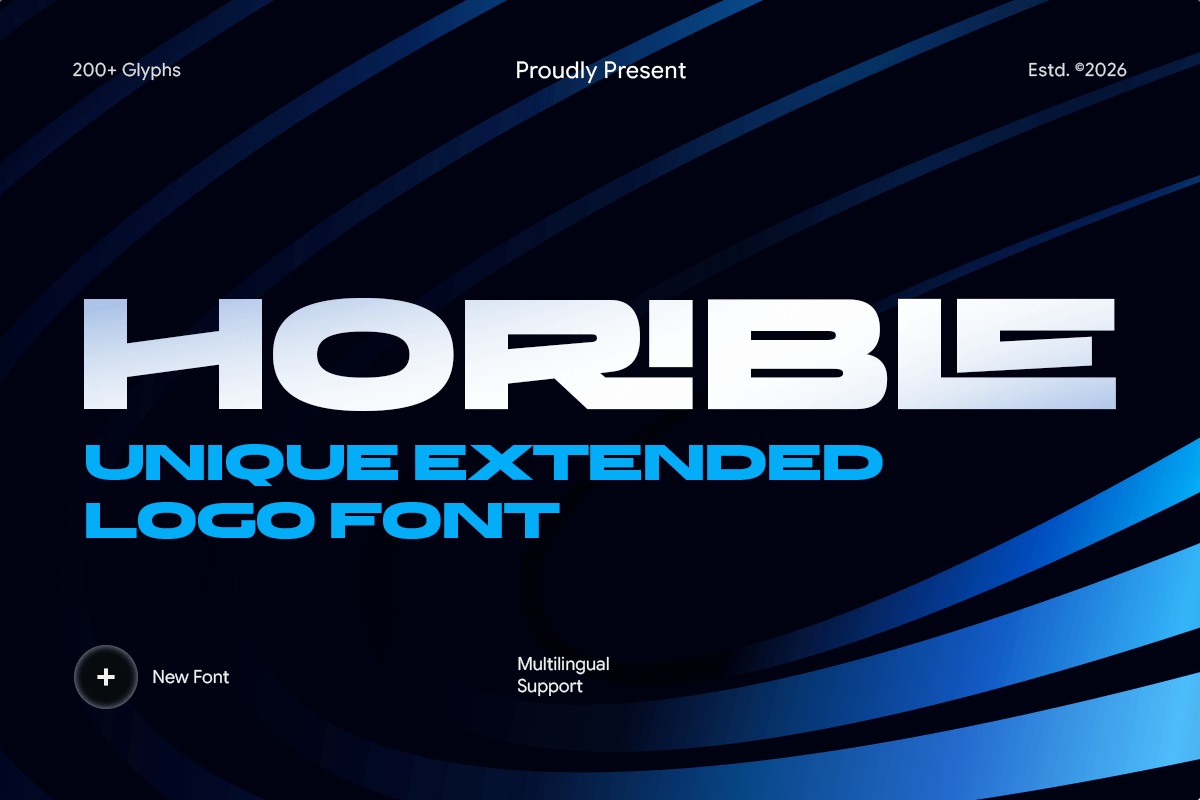
Horible – Extended Sans Serif Font
Horible – Extended Sans Serif Font is a flexible and reliable font created to fit multiple design needs, from branding and packaging to social media and editorial layouts. HORIBLE – Unique Extended Logo Font HORIBLE is a unique extended logo font designed to deliver a bold, wide, and highly distinctive visual identity. Featuring extended letterforms, modern structure, and strong geometric presence, HORIBLE is perfect for logos, branding, headlines, posters, and standout design projects.
Its wide proportions create a powerful horizontal impact, making HORIBLE ideal for brands that want to appear strong, modern, and memorable. The font balances uniqueness with readability, making it suitable for corporate branding, sports visuals, tech identities, and creative industries seeking a striking extended display font.